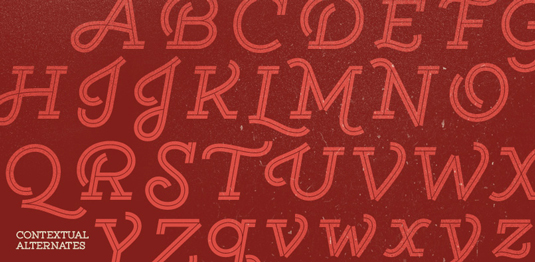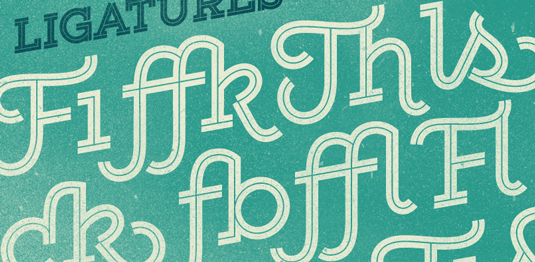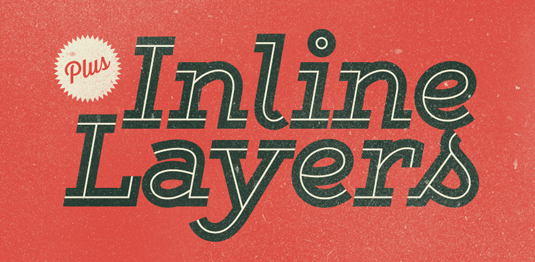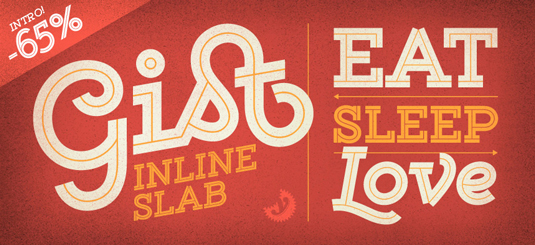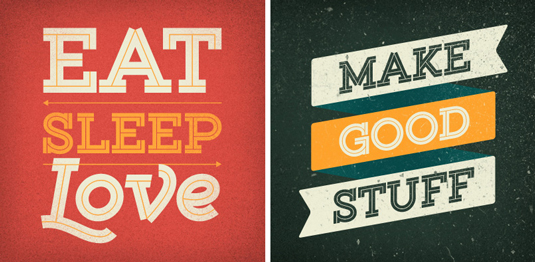
Font of the day: Gist
Gist from Yellow Design Studio
An inline slab serif, Gist from Yellow Design Studio is a retro font with a modern vibe. Featuring 627 glyphs per weight, you can keep things simple with the base character or add some flair with ligatures, alternates and swashes. Also included are line layers for adding color to the inline areas. As a bonus, try Gist Light for free!